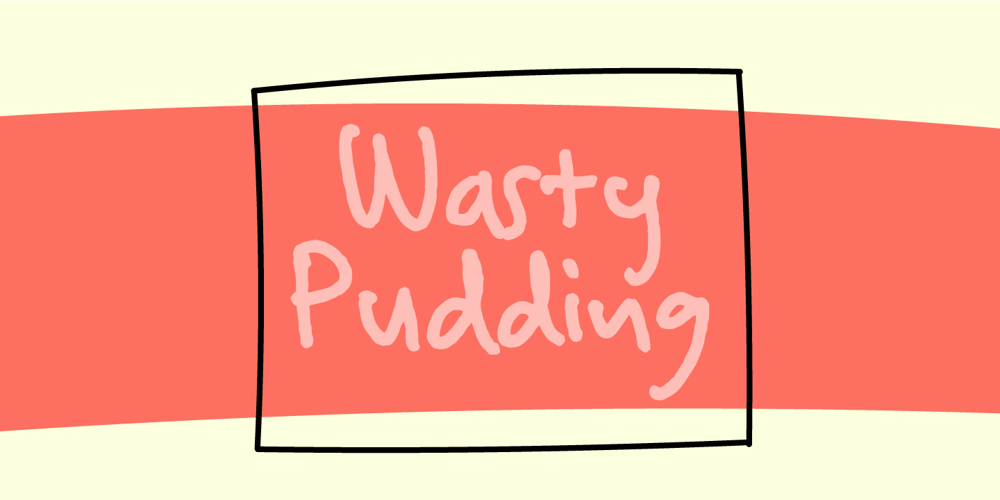
Wasty Pudding Font Family was designed by Jakob Fischer and published by PizzaDude.dk. Wasty Pudding contains 2 styles and family package options. Wasty Pudding was made by drawing a lot of letters, over and over again – and not caring so much about the looks, but focusing more on the speed of drawing, because I wanted a font that represented the way I write, when I am taking notes for myself. It’s not pretty, but it’s legible and scribbeliciously beautiful! :)Anyway, I think the purpose of this font is massive amounts of text. Song lyrics, novels, stories, diaries, manuscripts, books, etc.I bet you can fool someone with them thinking that this is not a font, because I have added 6 different versions of each lowercase letter!!!